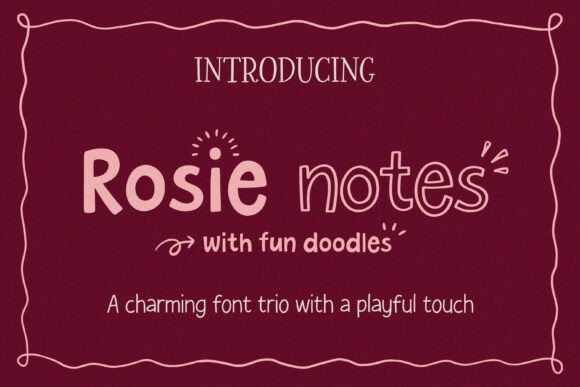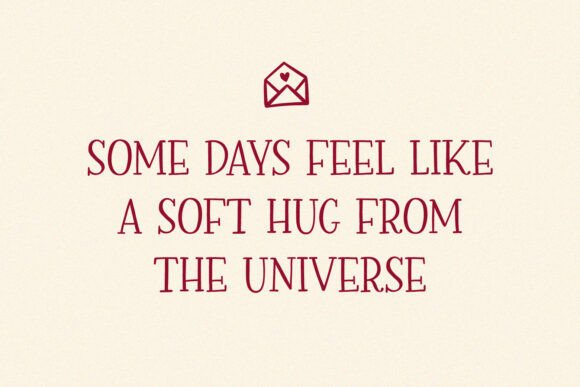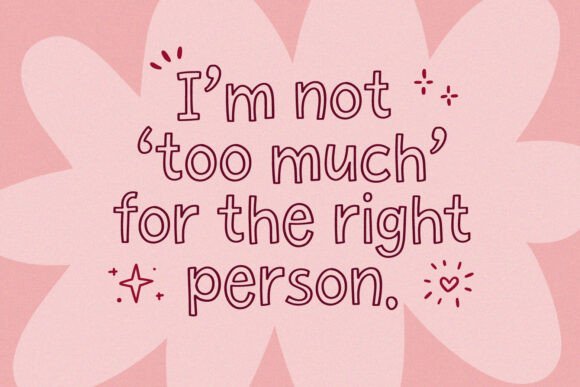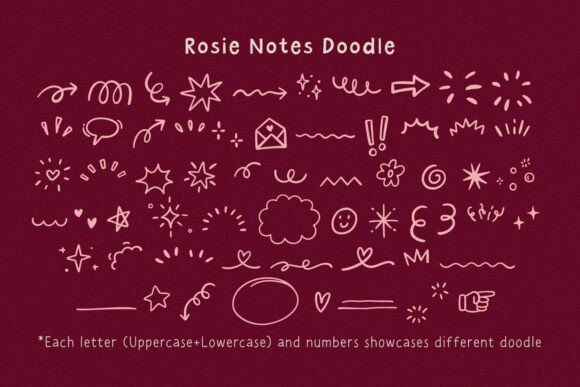
About the Rosie Notes Font
Elevate your designs with Rosie Notes Font, a font that combines sophistication with readability. Bring charm and creativity to your designs with Rosie Notes, a delightful font set inspired by handwritten notes and doodles. This versatile collection includes five unique styles, each with its own personality:
✨ Rosie Notes – A friendly, rounded sans serif with a casual handwritten feel.
✨ Rosie Notes Outline – A fun, outlined version perfect for layering or playful text.
✨ Rosie Notes Serif – A quirky, hand-drawn serif with a touch of vintage charm.
✨ Rosie Notes Sans – A clean, simple sans serif that keeps things light and modern.
✨ Rosie Notes Doodle – A collection of cute, whimsical doodles to enhance your designs.
With its handmade and heartwarming aesthetic, Rosie Notes is perfect for journals, planners, greeting cards, branding, social media, and creative projects. Whether you’re looking for something bold, outlined, or adorned with charming doodles, this set has you covered!